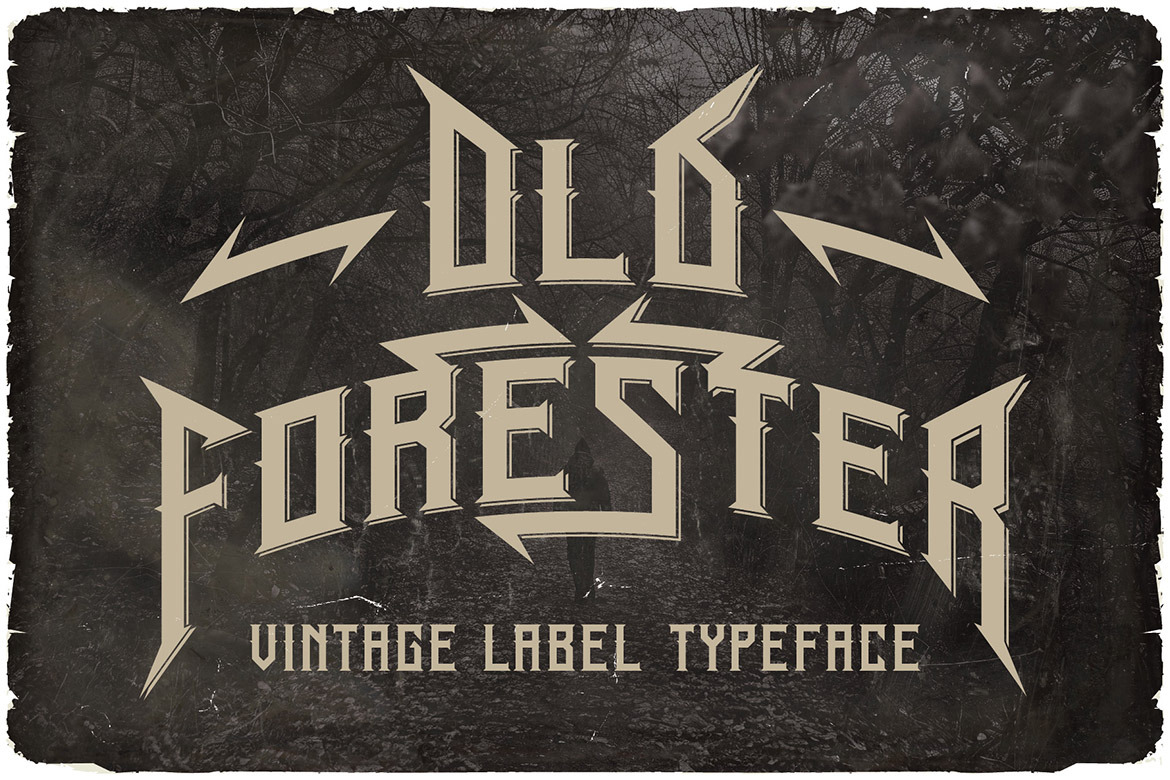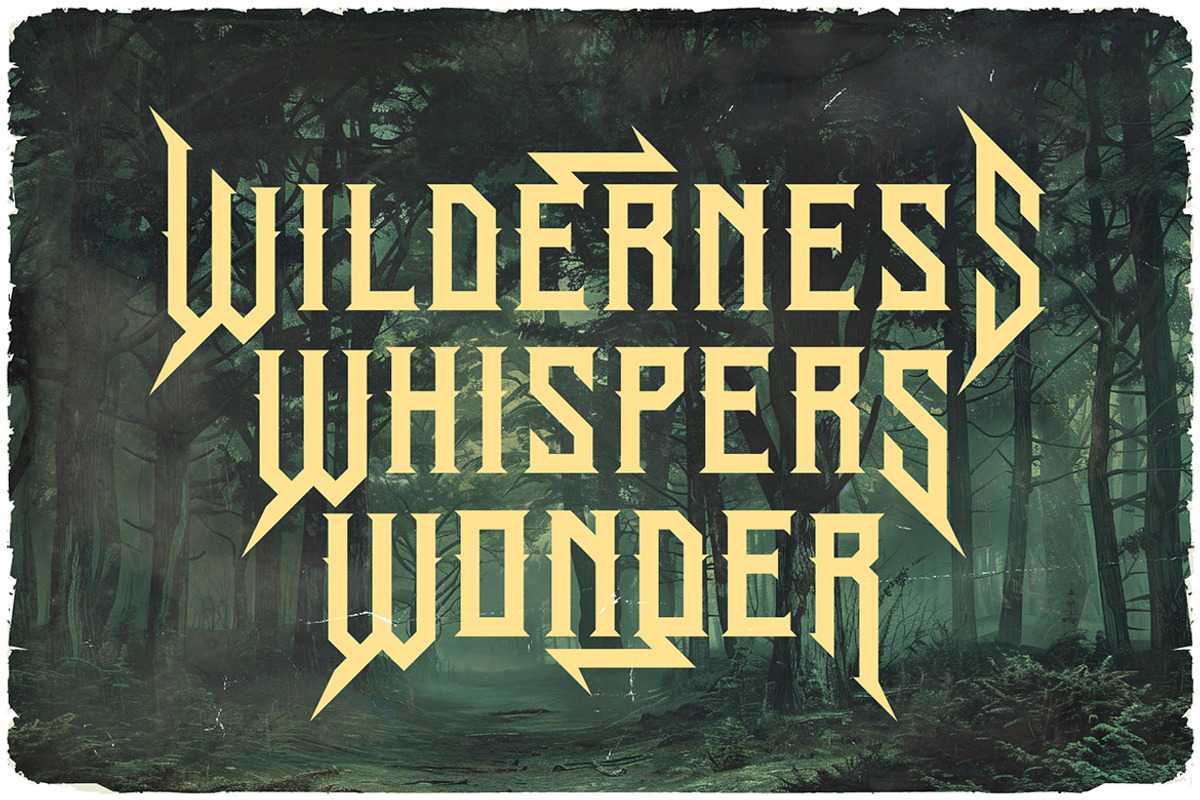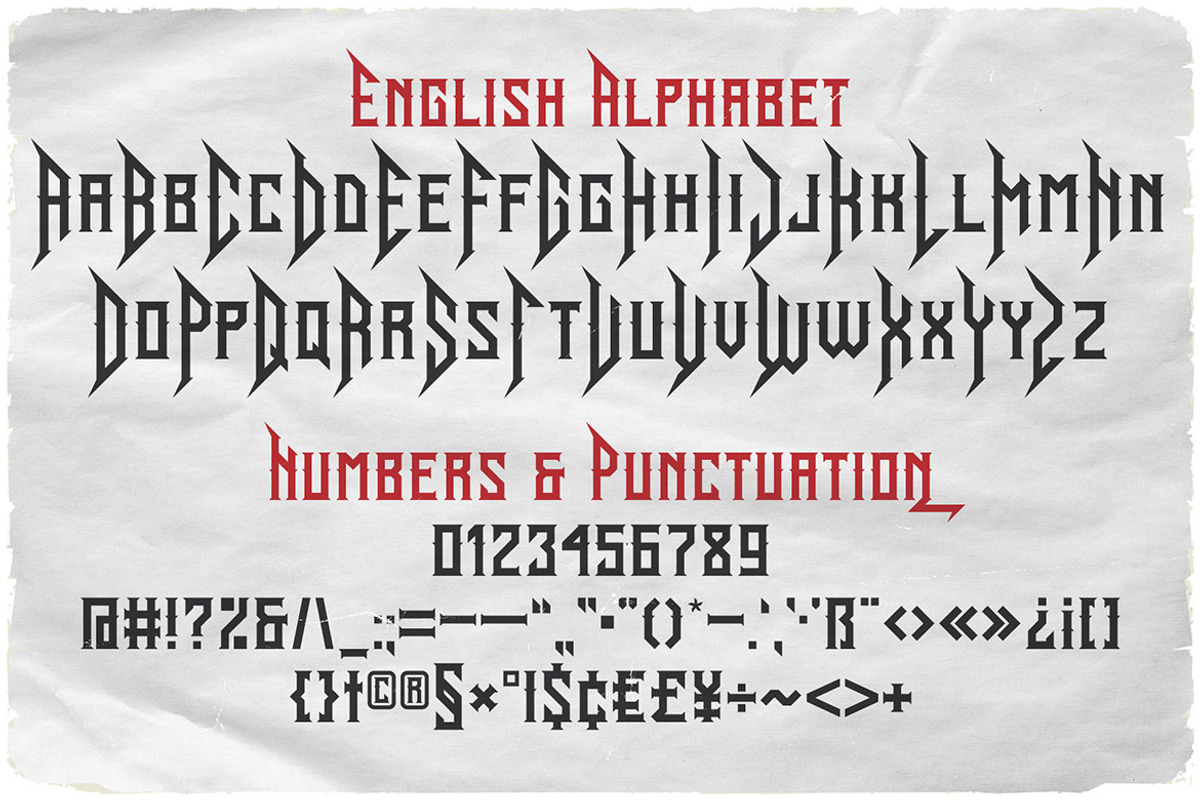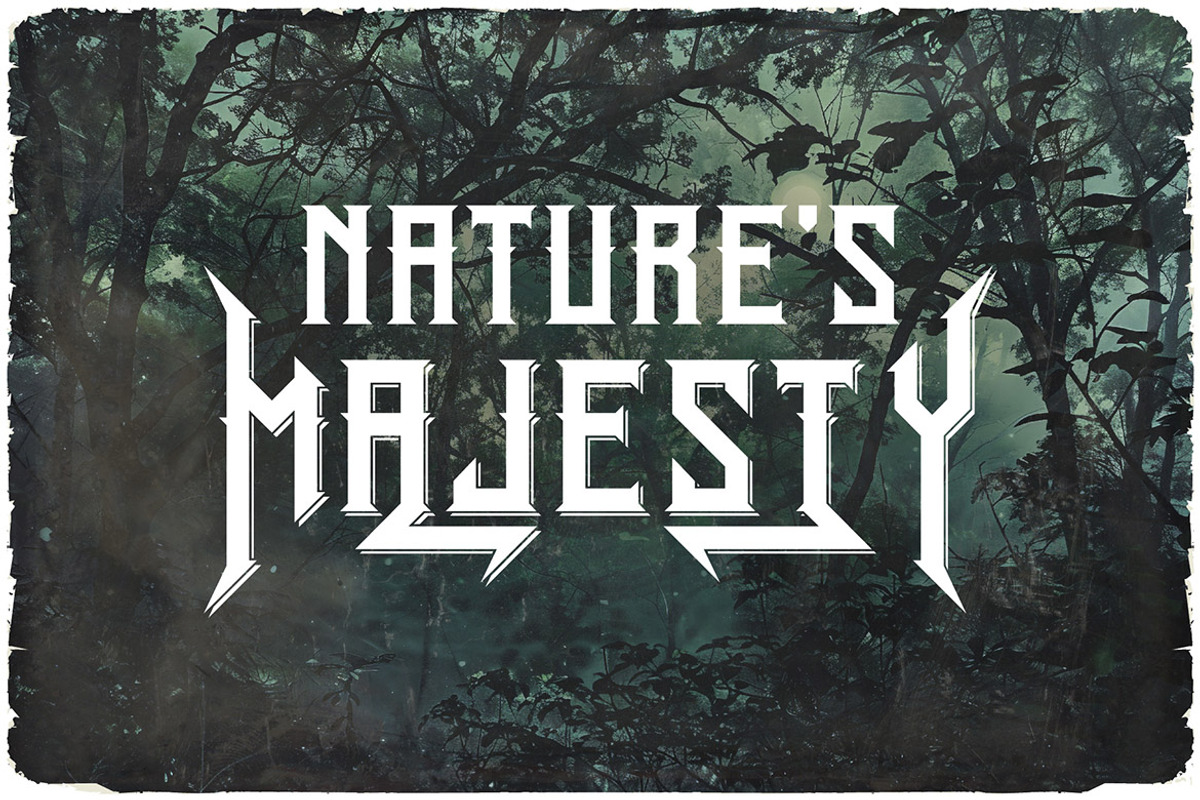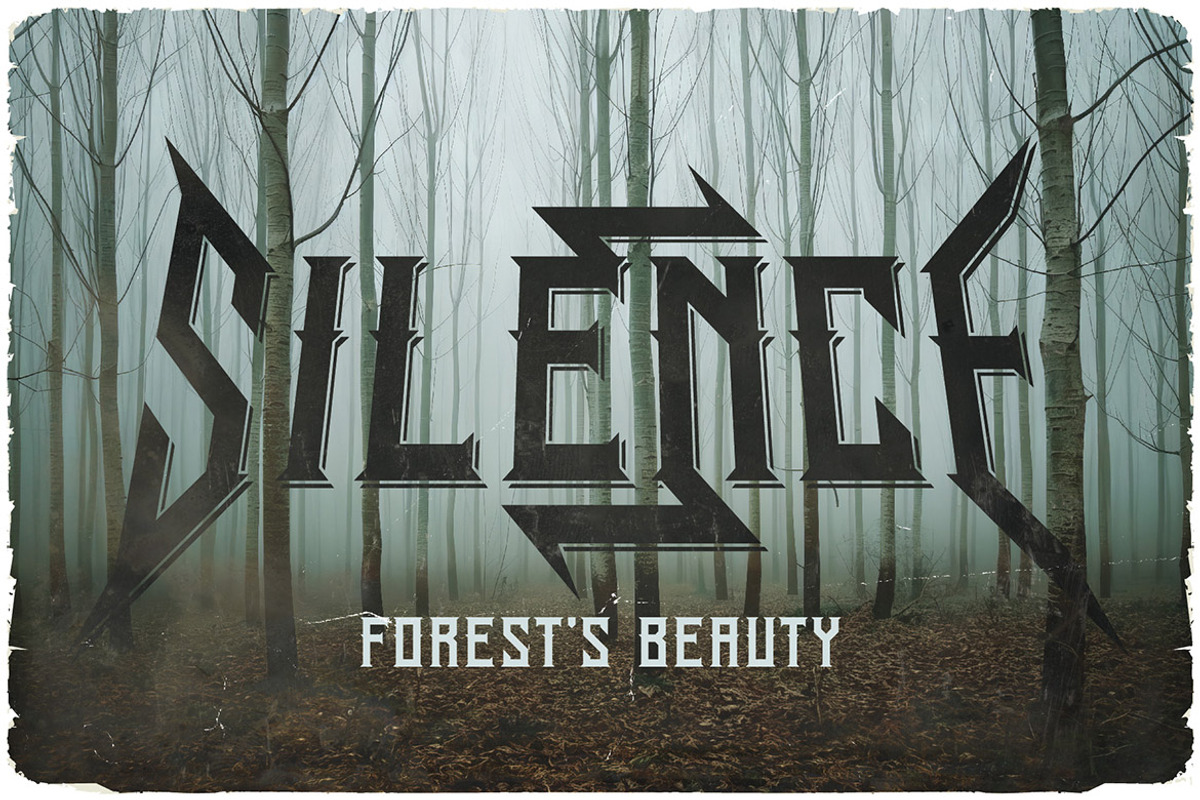
Old Forester Vintage Label Font
Unique, blackletter, vintage, retro, sharp & bold serif font. Comes with multilingual support & alternate characters - great for your new logo or branding project.
- Multilingual support & alternate characters
- Great for retro or vintage style branding projects